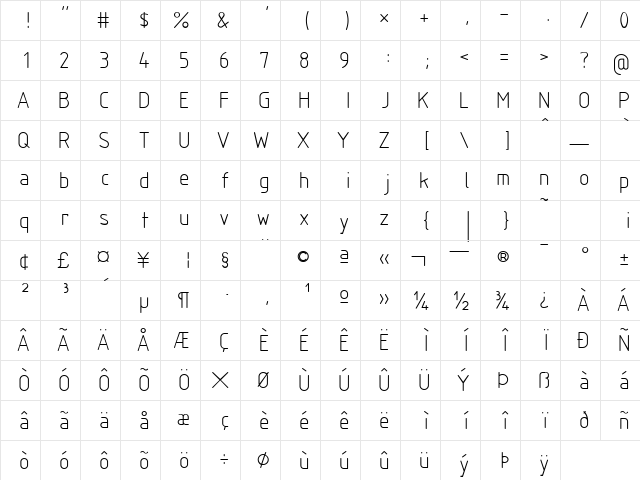
SWIsot3 Regular
Design Context for SWIsot3 Typeface
SWIsot3 is a composed and adaptable typeface that performs quietly and consistently across a wide range of design contexts.